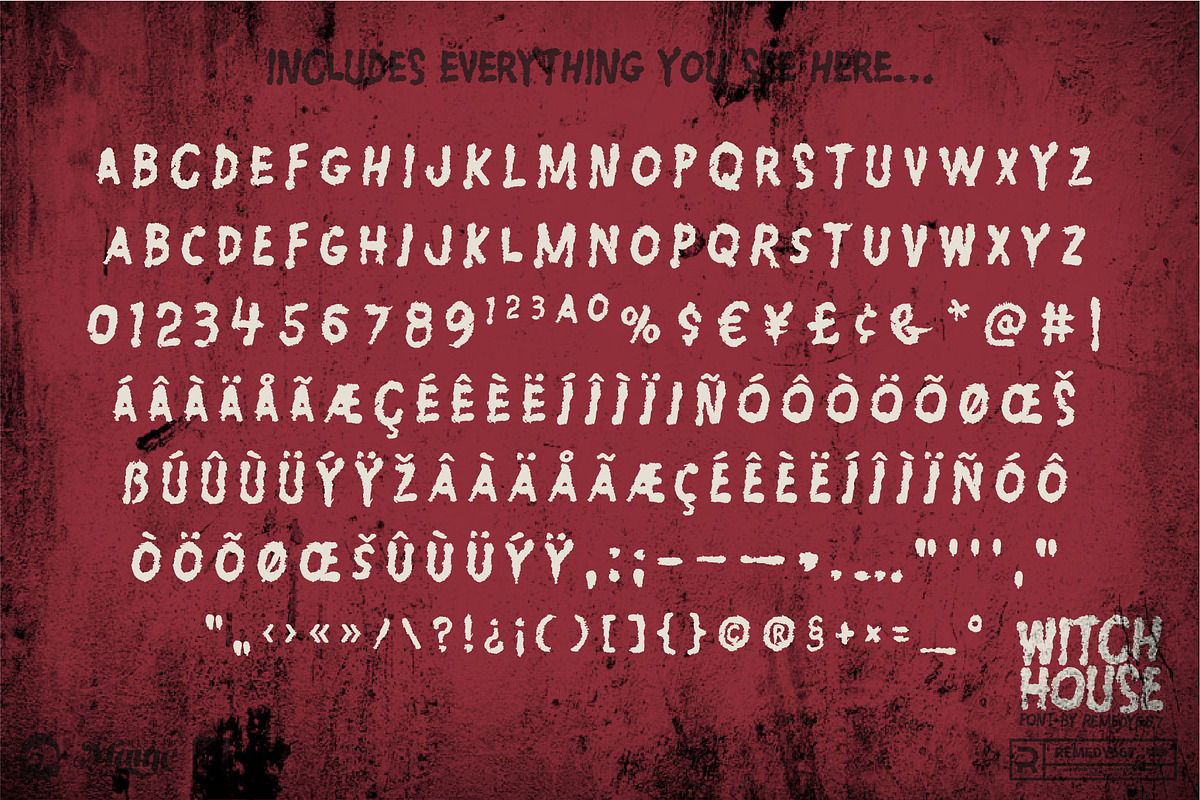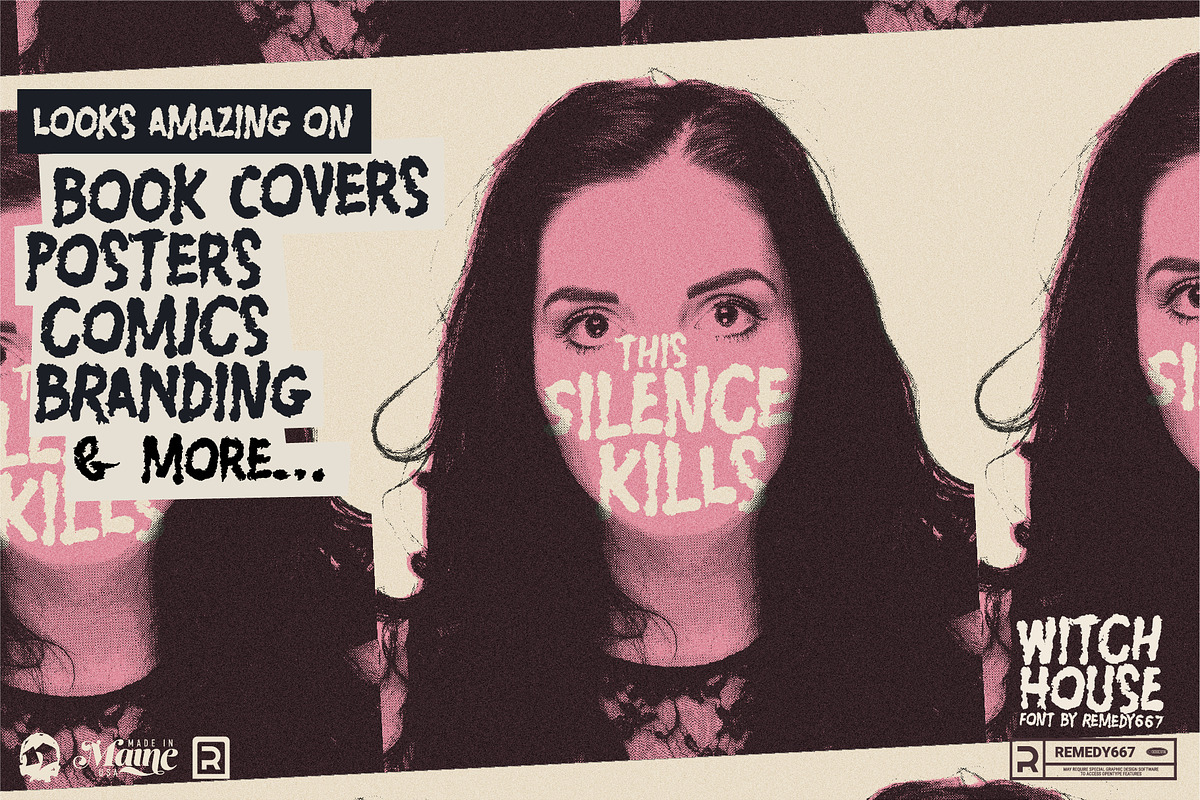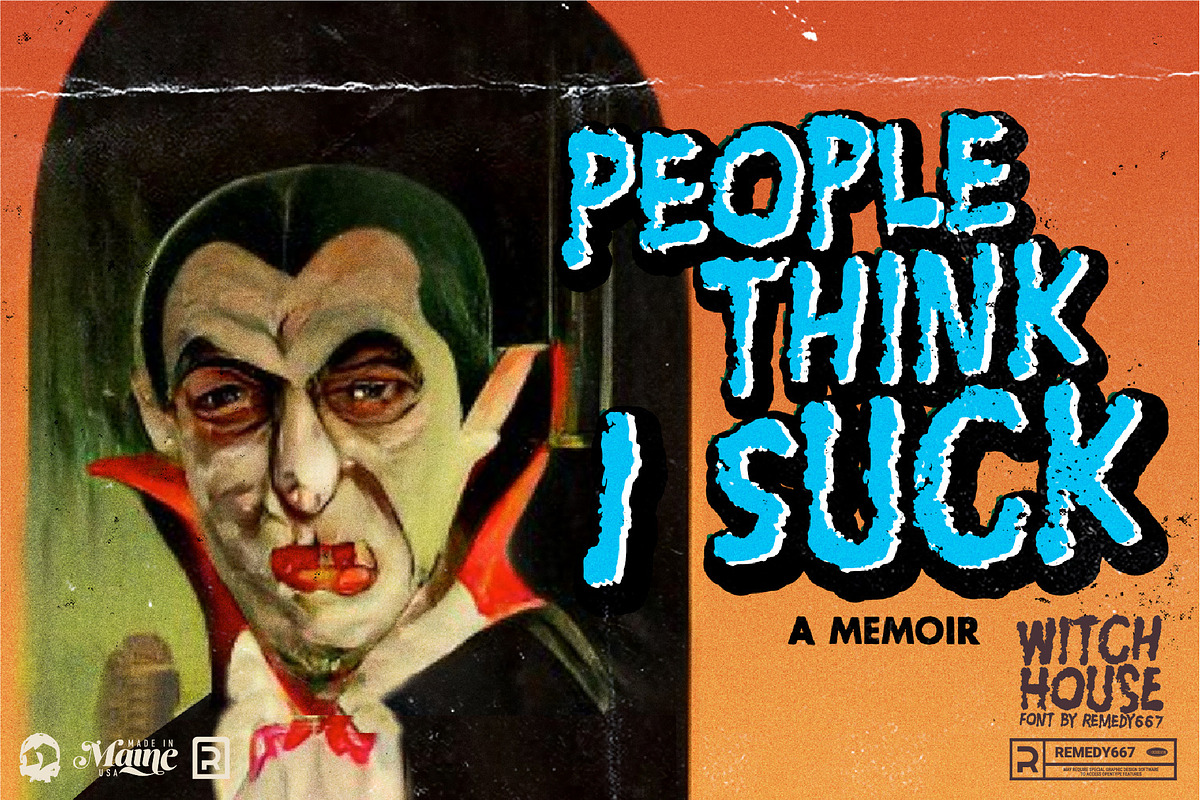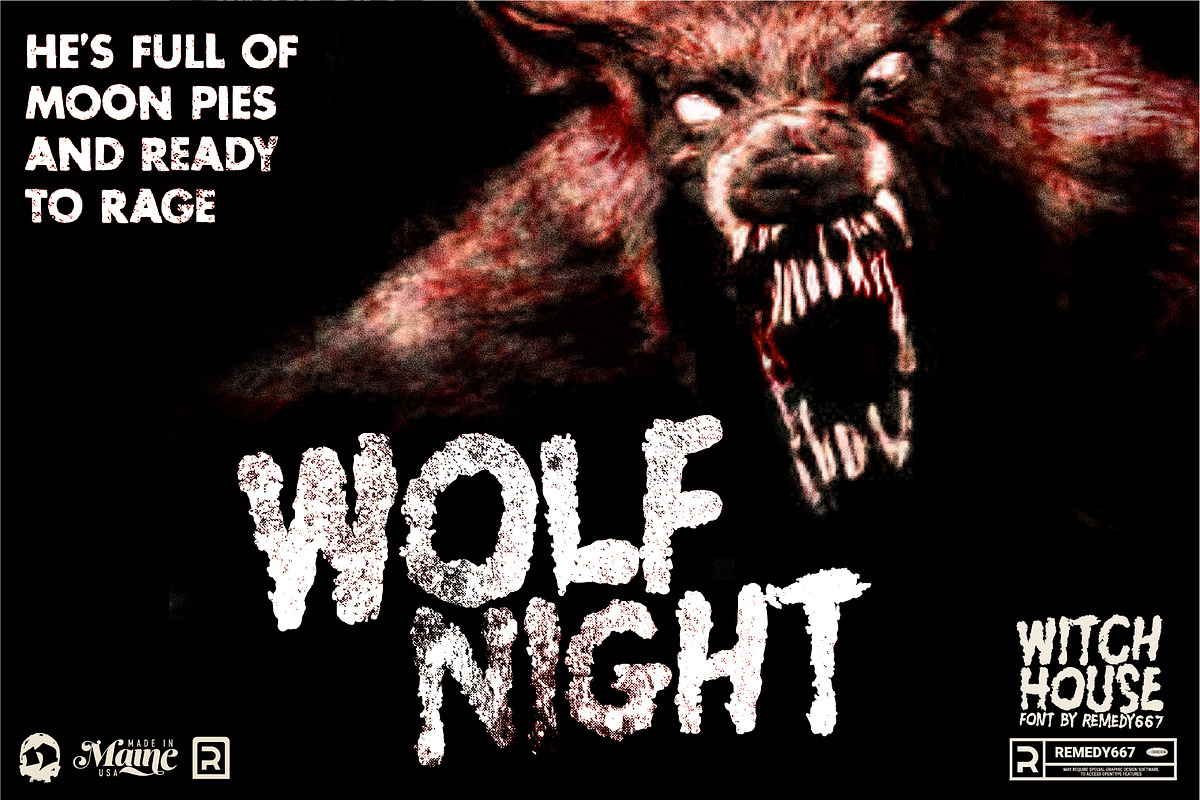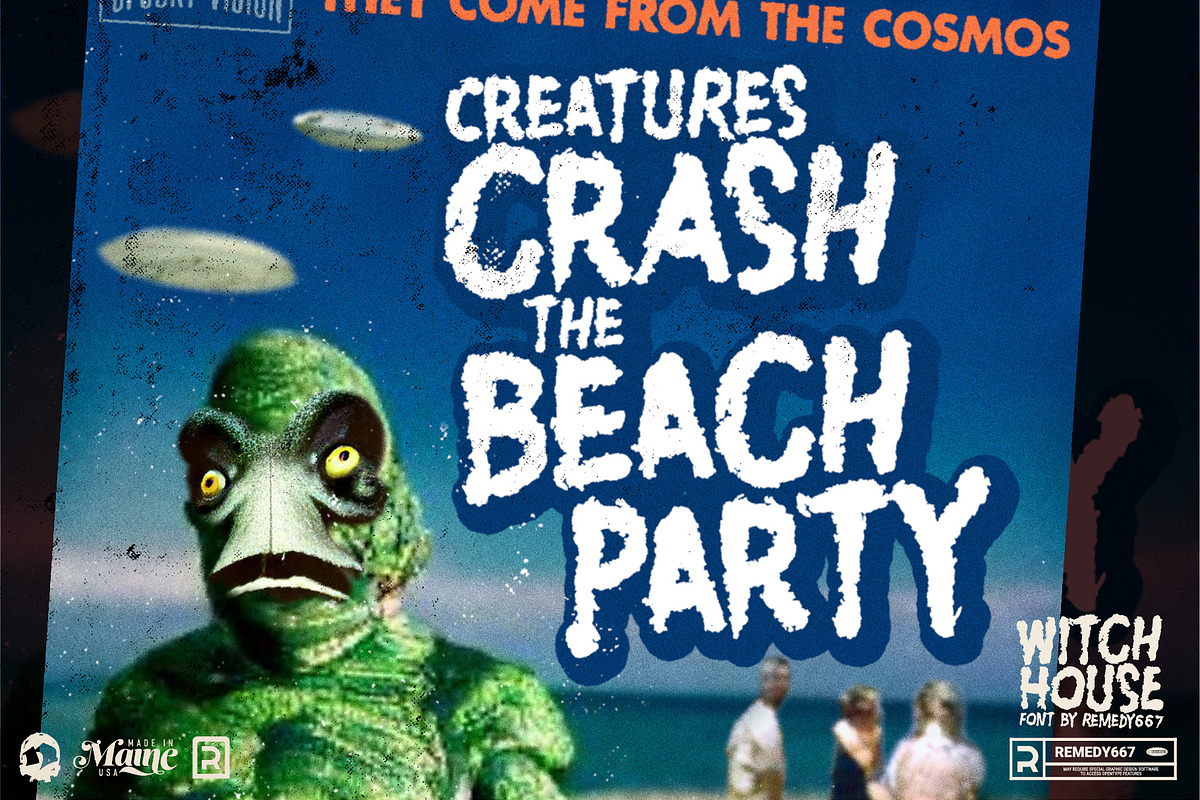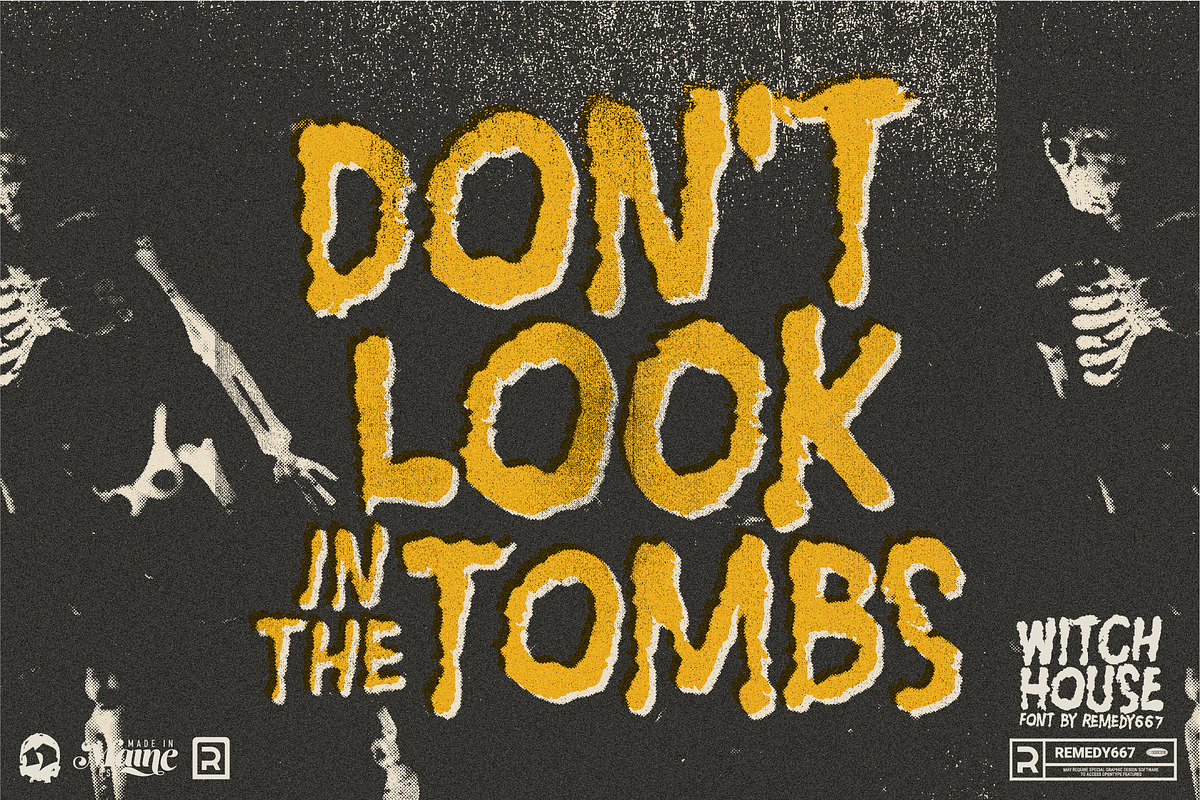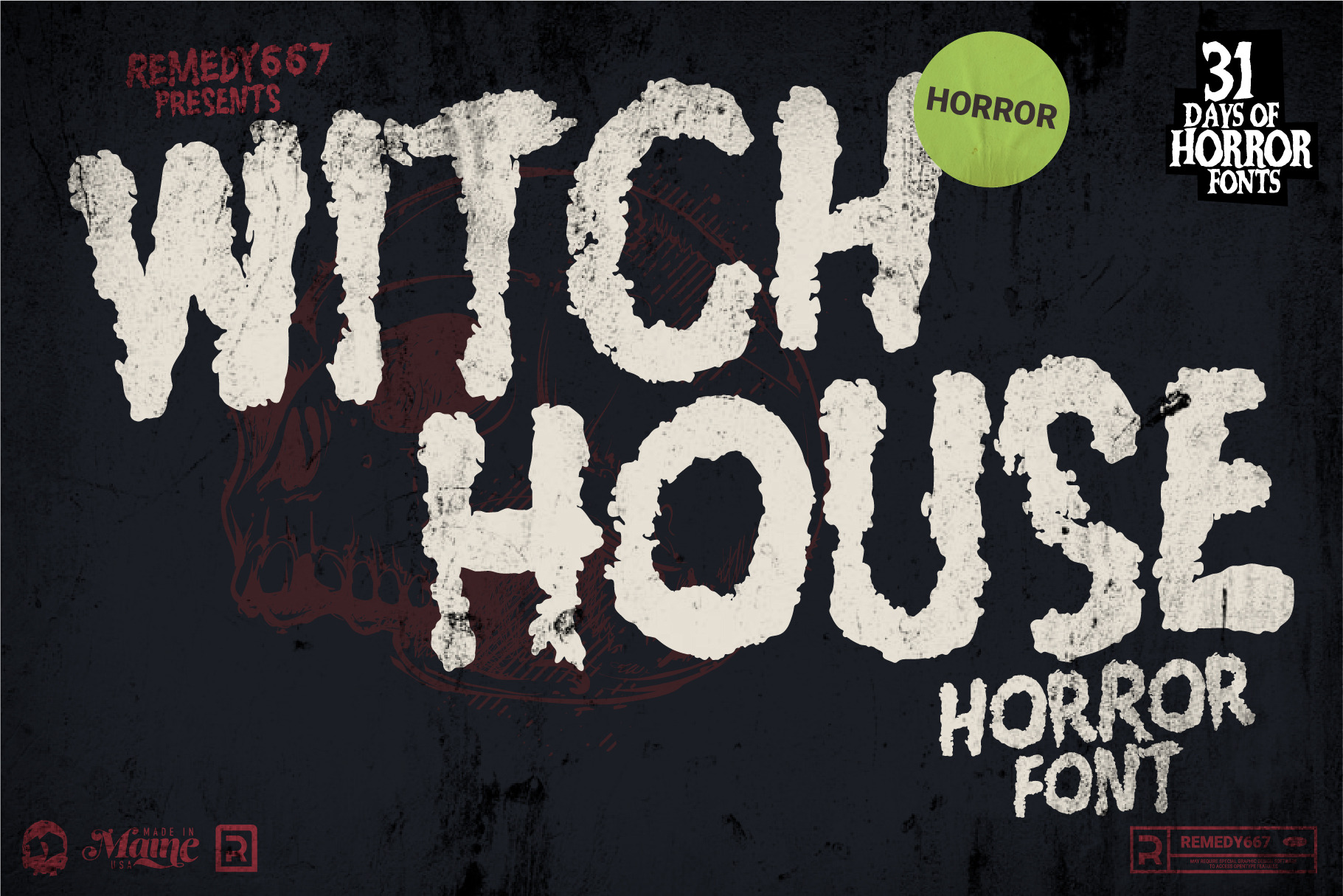
Witch House - Horror Font
Inspired by classic horror films, Witch House is set for everything from TV to social media to film posters. It’s dramatic, it’s dark, and it’ll make people uncomfortable. But that’s the point!
Tired of the same old font? Witch House is perfect for adding a little bit of vintage, horror-movie-style flair to any design project you might be working on. Designed for professional use, this is sure to be a favorite.
- Inspired by 1970s Grindhouse Movie Posters
- Bold and handwritten capturing the unrefined sense of nostalgia